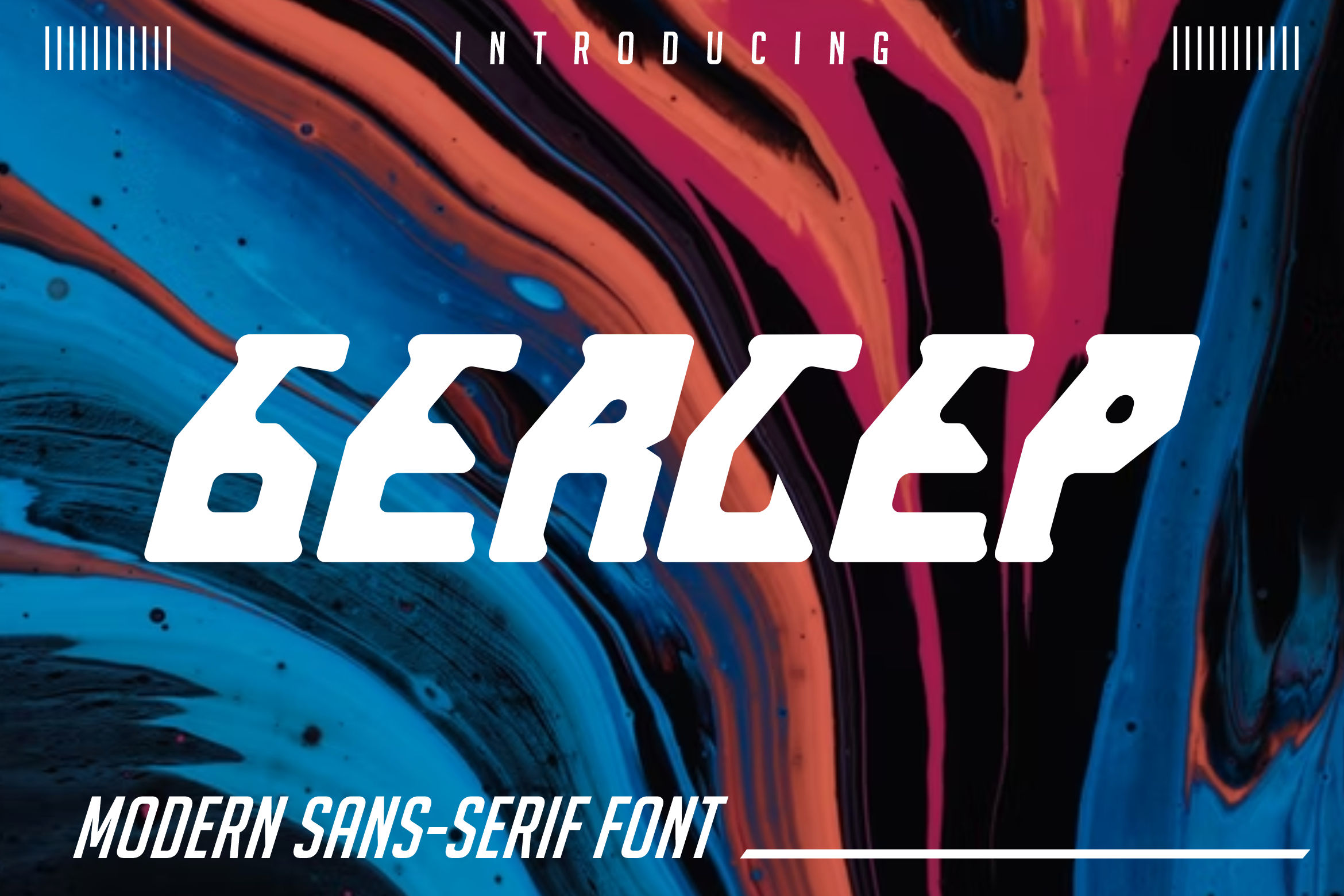
Gercep modern sansserif font
Gercep modern sansserif font – related to travel, history & culture in the present/modern way,lifestyle designs such as logos, title, magazine, and more.